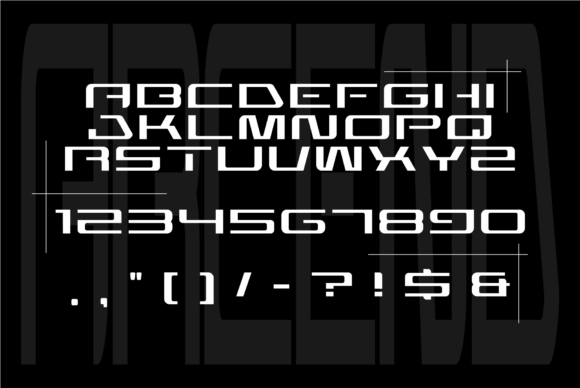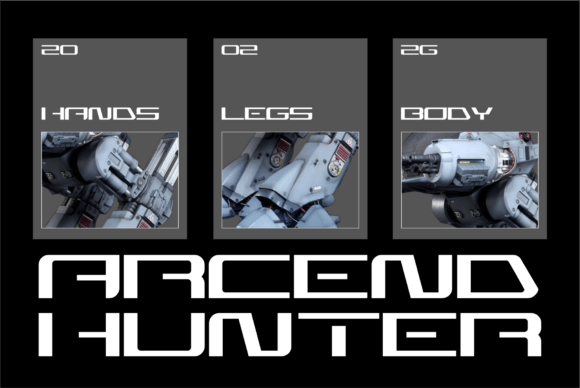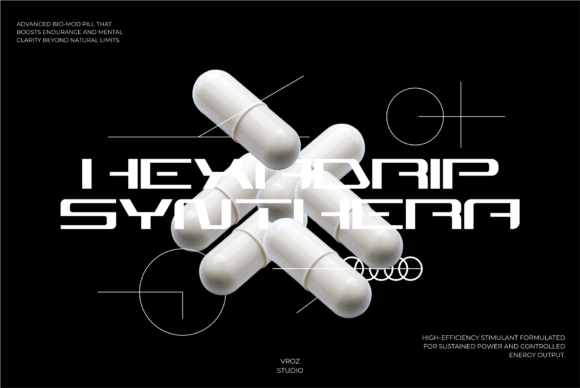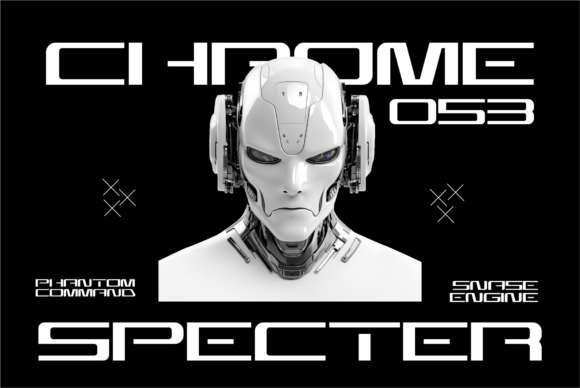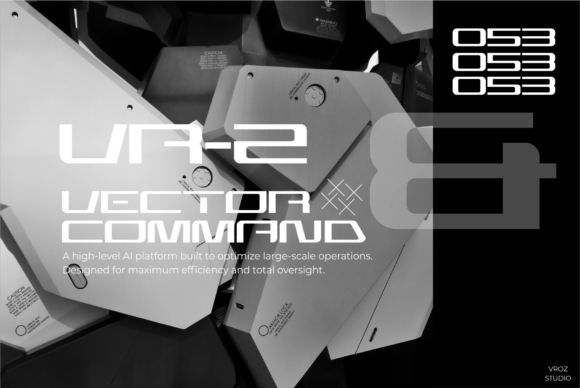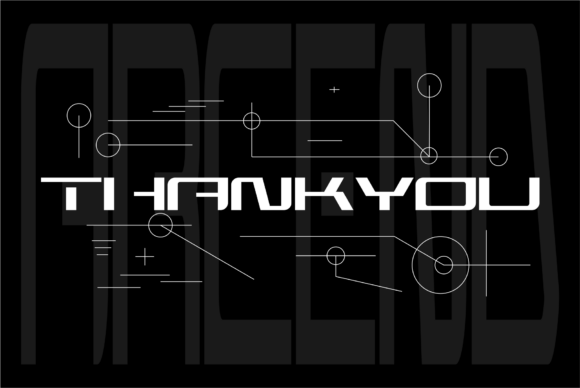
A Design Revelation: Unlocking the Power of Arcend Font
As designers, we’ve all been there – staring at a blank canvas, searching for the perfect font to bring our vision to life. And then, it happens. A spark of inspiration strikes, and you discover a font that elevates your work to new heights. For me, that moment came when I stumbled upon Arcend Font, a futuristic modern sans serif display font that’s been a game-changer in my creative process.
Designed with clarity, precision, and contemporary design needs in mind, Arcend Font is the perfect solution for modern digital environments. Its geometric structure, clean cuts, and smooth transitions deliver a confident and forward-looking visual style that’s perfect for branding, technology visuals, gaming graphics, and more. As a designer, Arcend Font is a valuable addition to your toolkit, offering a strong yet minimalist character that pairs beautifully with other modern sans serif or classic serif fonts.
Arcend Font Key Features
- Font Family: Arcend Font is a modern sans-serif font family with multiple weights and styles, making it suitable for a wide range of applications.
- Unique Characteristics: Arcend Font features a unique blend of geometric and organic elements, resulting in a clean and modern aesthetic with a touch of sophistication.
Arcend Font Review
First off, let me say that I was really excited to dive into the Arcend Font. From the initial glance, I thought it had a lot of potential. Here are a few things that really work well: ✨
- It’s got a modern, clean aesthetic that’s perfect for contemporary designs.
- The font is highly legible, making it ideal for body text and titles.
- The font’s versatility shines through in its multiple weight options, which allows for a lot of creative freedom.
However, as I dug deeper, I did come across a few limitations: ⚠️
- The font feels a bit one-dimensional, lacking a unique personality that sets it apart from other modern fonts.
- The italic styles could be more refined, as they sometimes look a bit too sloppy.
Overall, the Arcend Font is a solid choice for designers looking for a clean and modern sans-serif font. While it may not blow me away with its originality, it gets the job done and is definitely worth considering for your next project.
For best results, use the Arcend Font in headings and titles to add a touch of elegance and sophistication.
For best results, use the Arcend Font in combination with other elegant fonts to create a sophisticated design.
For best results, use the Arcend Font in headings and titles to add a touch of elegance and sophistication.
The Arcend Font is ideal for:
1. Branding and logos
2. Headings and titles
3. Elegant and sophisticated designs
4. Fashion and luxury products
5. High-end marketing materials
Alternatives to Arcend Font
Montserrat is a popular sans-serif font designed for digital media. It’s a great alternative to Arcend Font when you need a clean, modern, and highly legible font for digital applications. Montserrat is more geometric and has a stronger x-height compared to Arcend Font, making it suitable for body text and headlines.
Open Sans is a modern sans-serif font designed for digital use. It’s a good choice when you need a friendly, approachable font that works well in a variety of contexts. Open Sans has a more rounded feel compared to Arcend Font, making it suitable for longer blocks of text and more casual applications.
Merriweather is a classic serif font that’s perfect for formal or traditional applications. It’s a good alternative to Arcend Font when you need a more elegant and sophisticated font for print or digital use. Merriweather has a more traditional feel compared to Arcend Font, with a stronger emphasis on vertical lines and a more formal x-height.